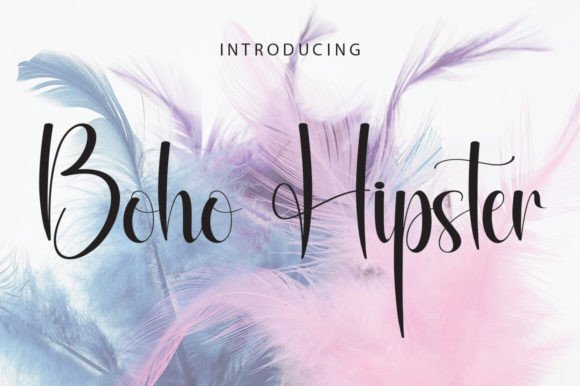
Introducing Boho Hipster Font: The Ultimate Expression of Whimsy and Charm
Are you a designer, crafty enthusiast, or simply someone who appreciates the beauty of typography? Look no further! We’re thrilled to introduce Boho Hipster, a whimsically charming handwritten font that will elevate your design concepts to new heights. With its unique blend of sweetness and cursive flair, Boho Hipster is poised to become your go-to font for adding a touch of romance and personality to your projects.
The Essence of Boho Hipster
Boho Hipster is more than just a font – it’s an expression of free-spirited creativity. Its gentle yet expressive strokes infuse grace into a wide range of design concepts, from rustic and vintage to modern and trendy. With Boho Hipster, every word becomes a stroke of poetry – nuanced, emotive, and wildly beautiful. Whether you’re designing a logo, crafting a social media post, or creating a stunning visual display, Boho Hipster lends a joyous and romantic air to your projects, transforming them into pieces of art that brim with personality.
What Makes Boho Hipster Stand Out
So, what sets Boho Hipster apart from other fonts? Here are a few key characteristics that make it truly unique:
- Whimsical charm: Boho Hipster’s handwritten strokes are infused with a playful, carefree spirit that’s perfect for designers who want to add a touch of whimsy to their work.
- Cursive flair: The font’s elegant cursive connections create a sense of fluidity and movement, making it ideal for designs that require a sense of dynamism.
- Expressive strokes: Boho Hipster’s strokes are gentle yet expressive, allowing for a range of emotions and personalities to shine through in your designs.
- Romantic air: The font’s romantic undertones evoke a sense of nostalgia and charm, making it perfect for designs that require a touch of vintage glamour.
Boho Hipster is a versatile font that’s perfect for designers and crafters who want to add a personal touch to their work. Whether you’re creating:
- Logos and branding materials: Boho Hipster’s unique charm makes it an excellent choice for logos, business cards, and other branding materials.
- Social media graphics: The font’s playful, cursive strokes are perfect for social media posts, quotes, and other visual displays.
- Invitations and stationery: Boho Hipster’s romantic air makes it ideal for wedding invitations, stationery, and other paper crafts.
- Digital and print media: The font’s versatility makes it suitable for a range of digital and print applications, from blog headers to magazine titles.
Unleash Your Creativity with Boho Hipster
With Boho Hipster, the creative possibilities are endless! Our font is designed to be flexible and easy to use, allowing you to focus on bringing your ideas to life. Here are a few tips for getting the most out of Boho Hipster:
- Experiment with colors: Boho Hipster’s playful strokes look stunning in a range of colors, from bold and bright to soft and pastel.
- Mix and match: Combine Boho Hipster with other fonts to create unique and eye-catching designs.
- Play with textures: Add depth and interest to your designs by incorporating textures and patterns.
In conclusion, Boho Hipster is a one-of-a-kind font that’s sure to capture your heart. With its whimsical charm, cursive flair, and expressive strokes, it’s the perfect choice for designers and crafters who want to add a touch of personality to their work. So why wait? Unleash your creativity with Boho Hipster and discover a world of design possibilities!